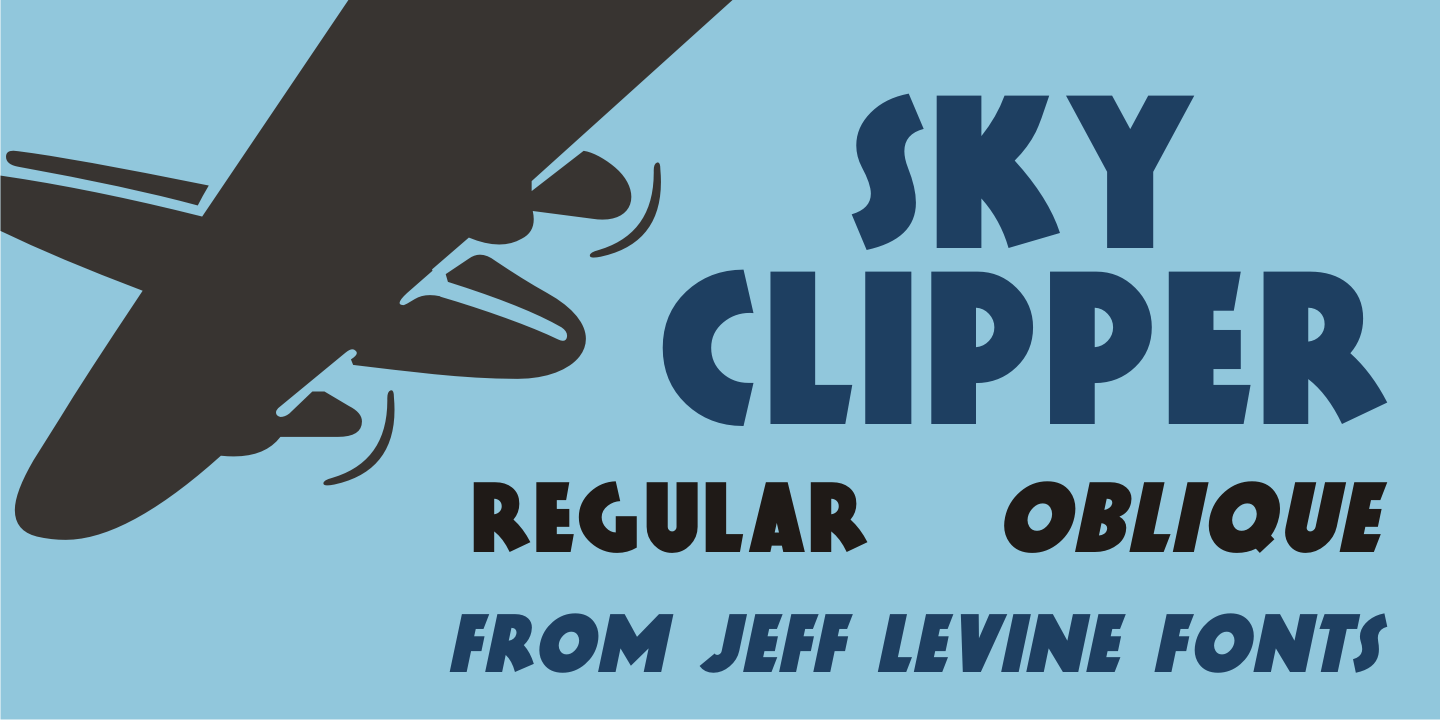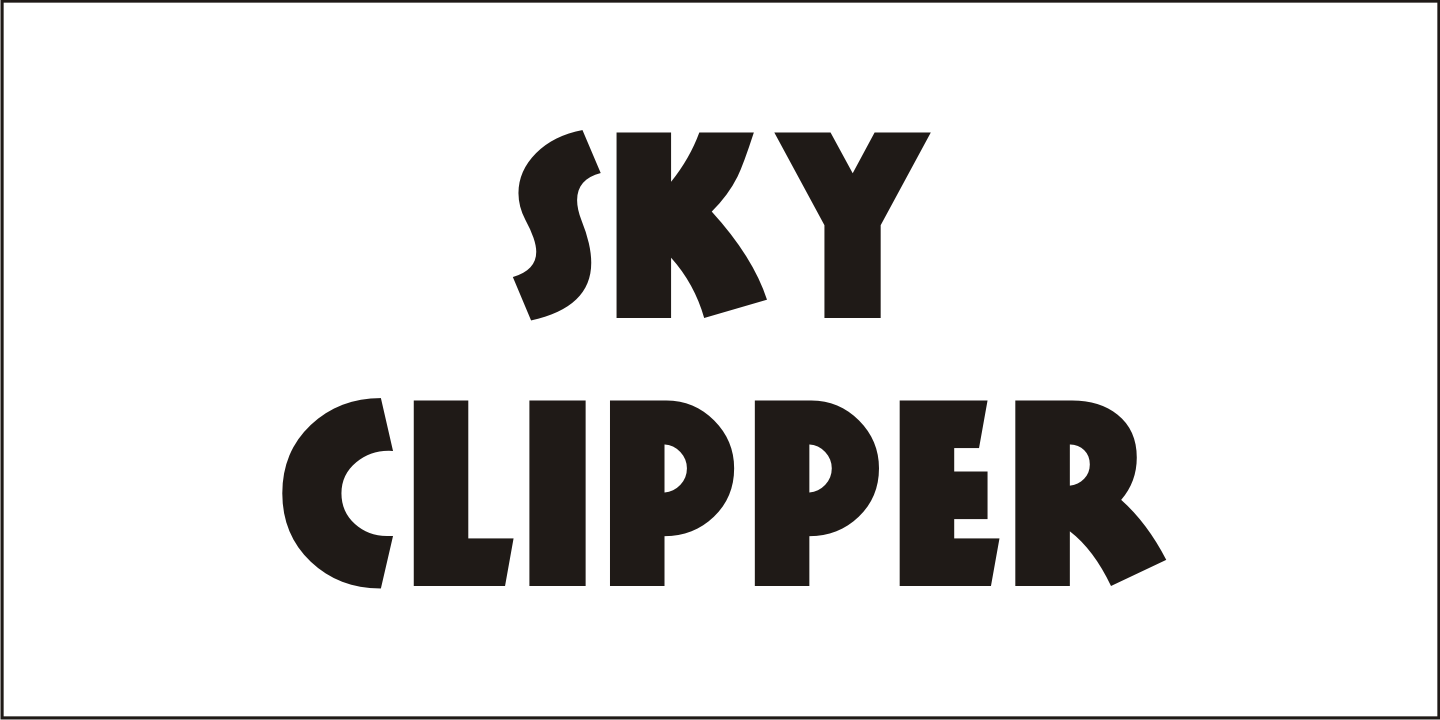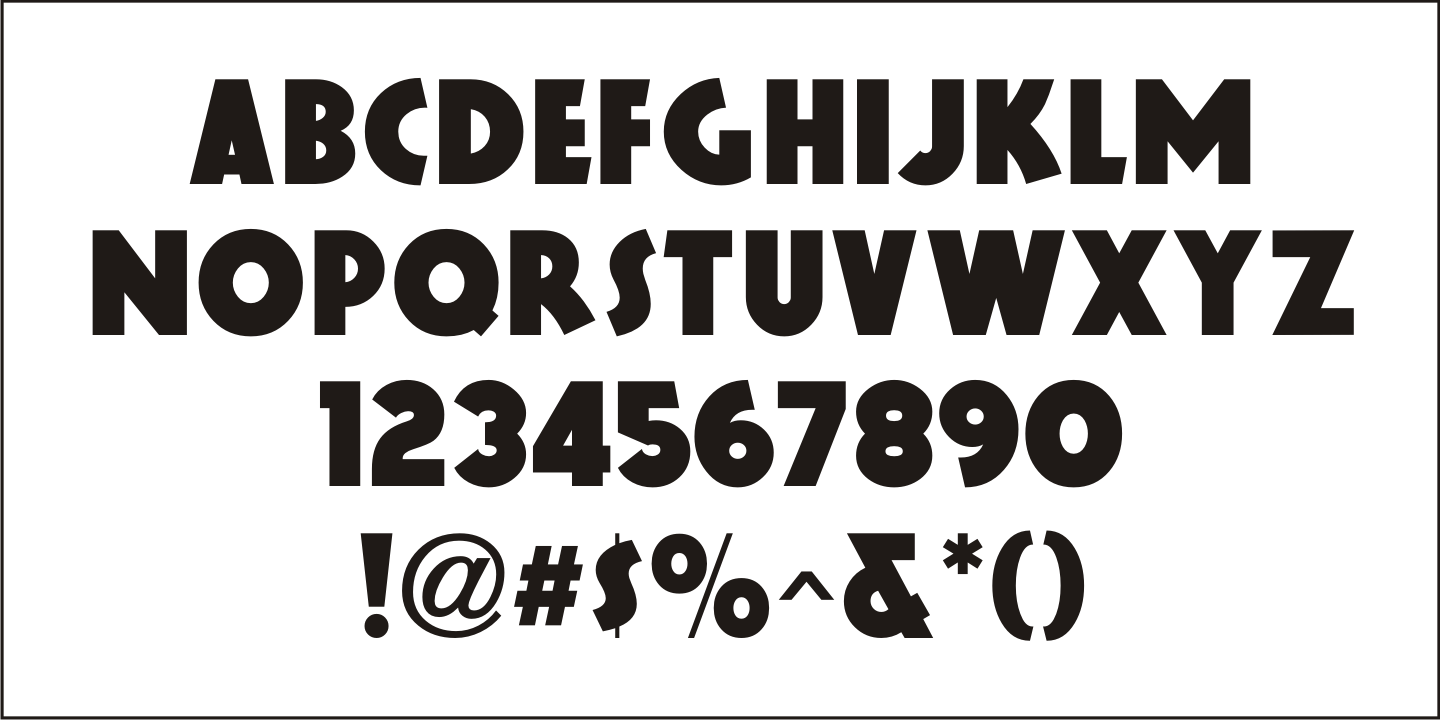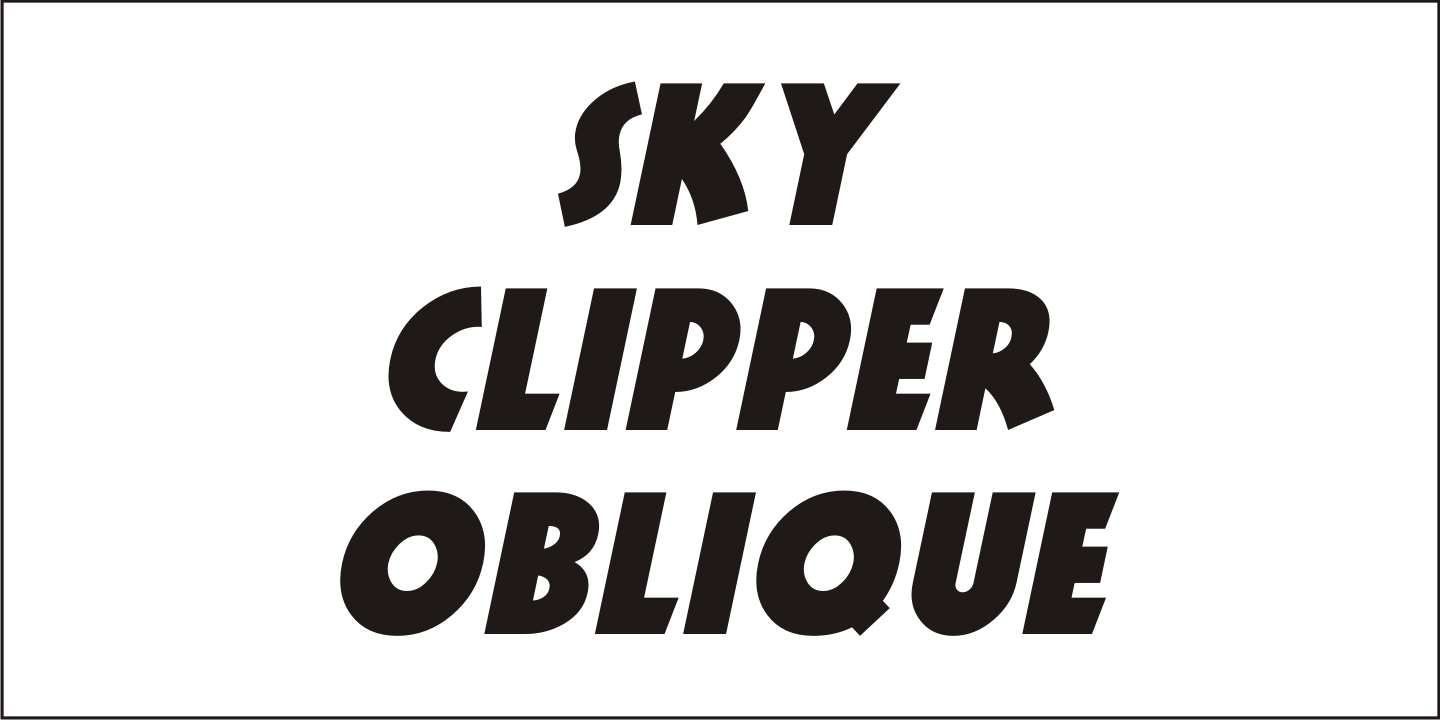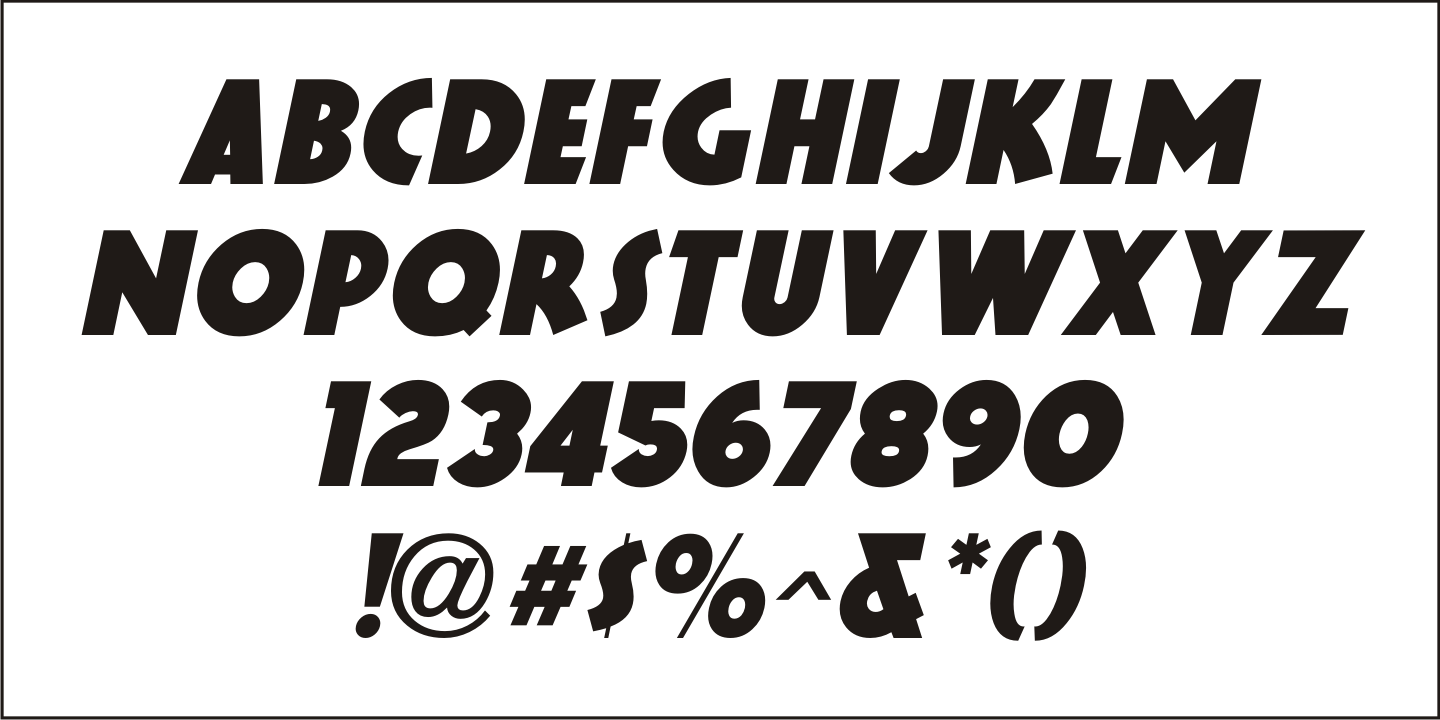
Sky Clipper
Sky Clipper JNL is a bold, Art Deco sans serif typeface derived from the hand lettered title on a 1940s-era 'Big Little Book' entitled 'Flying the Sky Clipper with Winsie Atkins'.
The design is available in both regular and oblique versions.
'Big Little Books' were published by the Whitman Publishing company and featured short stories printed in a tiny sized book format for young children.